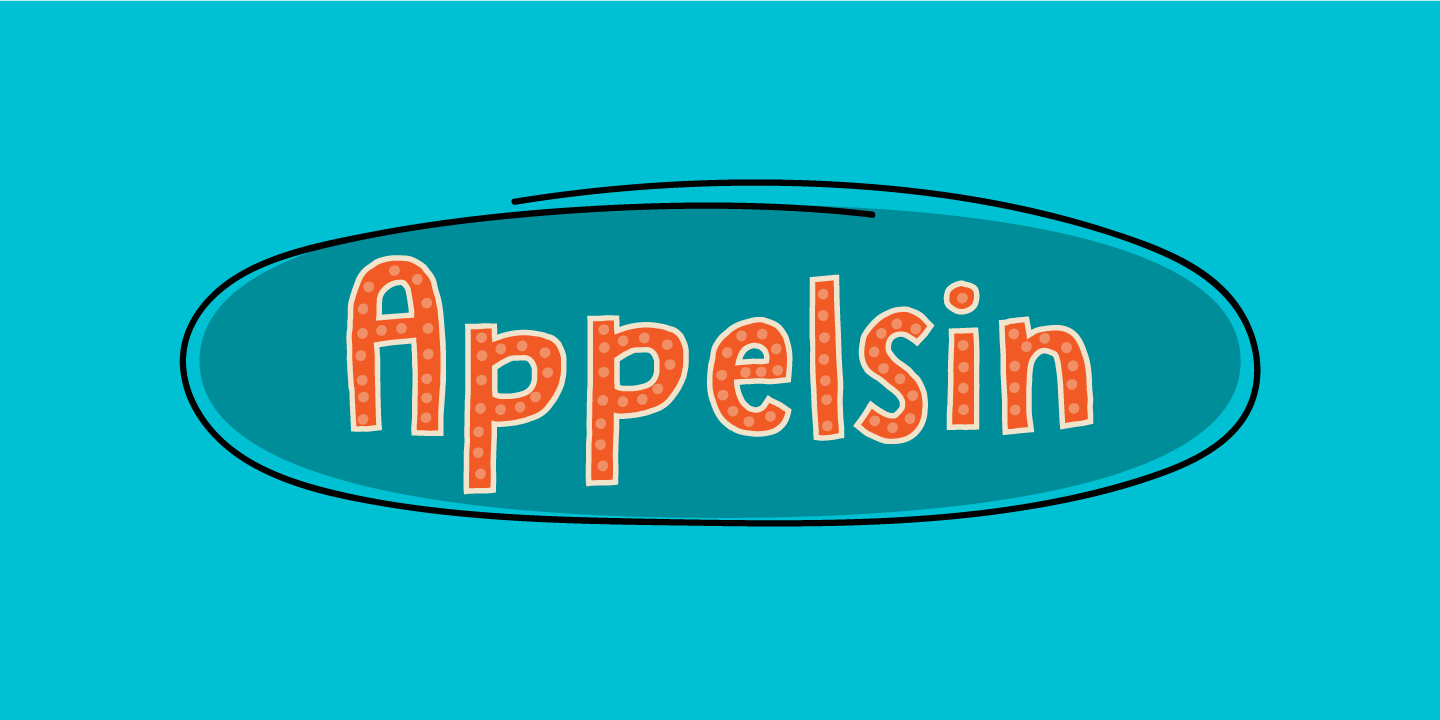
Appelsin Font is perfect for juice bar branding, organic food packaging, fresh market signage, healthy lifestyle blogs, vitamin supplements, citrus product labels, summer festival posters, fruit company logos, wellness center marketing, and energetic social media campaigns. This vibrant typeface excels in projects that require freshness, vitality, and natural energy.
What makes Appelsin Font exciting is its brilliant ability to embody the zesty spirit and vibrant energy of fresh citrus through letterforms that seem to burst with natural sweetness and vitamin-rich vitality. The font features bright character curves, optimistic proportions, and refreshing visual flow that create immediate association with health, freshness, and natural goodness. Its energetic personality captures the essence of sunshine and organic vitality while maintaining excellent clarity, making it perfect for brands that want to communicate wellness, natural quality, and life-enhancing benefits.
Appelsin Font includes comprehensive font families such as Regular, Bold, Light, Italic, Juicy, and Zest variants. Each family member maintains the distinctive fresh character while offering different energy levels and stylistic approaches to accommodate various health-focused design needs and organic branding requirements.
This premium fresh typeface serves as an outstanding choice for designers working in health, nutrition, and organic lifestyle sectors. Appelsin Font Free Download provides exceptional value for health food companies, wellness practitioners, and creative agencies specializing in natural product communication. The font's vibrant appeal makes it particularly suitable for organic certifications, health supplements, fresh produce marketing, and wellness program materials.
Whether you're developing brand identity for health food companies, creating marketing materials for organic products, or designing promotional content for wellness services, Appelsin Font delivers the perfect combination of freshness and vitality that makes every healthy choice feel naturally appealing and energizing.